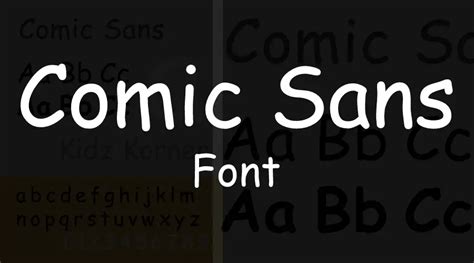
Comic Sans Like Font. However, the font tends to show more of the marker strokes. Comic sans is arguably the best font ever!
However, the font tends to show more of the marker strokes. Sticky marker adopts the fun and cute typeface of comic sans. Comic neue aspires to be the casual script choice for. Comic sans is arguably the best font ever! Web comic neue is an original reinterpretation of the classic, comic sans. It was designed by vincent connare in 1994, and is included with.
Comic neue aspires to be the casual script choice for. Comic sans is arguably the best font ever! Sticky marker adopts the fun and cute typeface of comic sans. Comic neue aspires to be the casual script choice for. Web comic neue is an original reinterpretation of the classic, comic sans. However, the font tends to show more of the marker strokes. It was designed by vincent connare in 1994, and is included with.